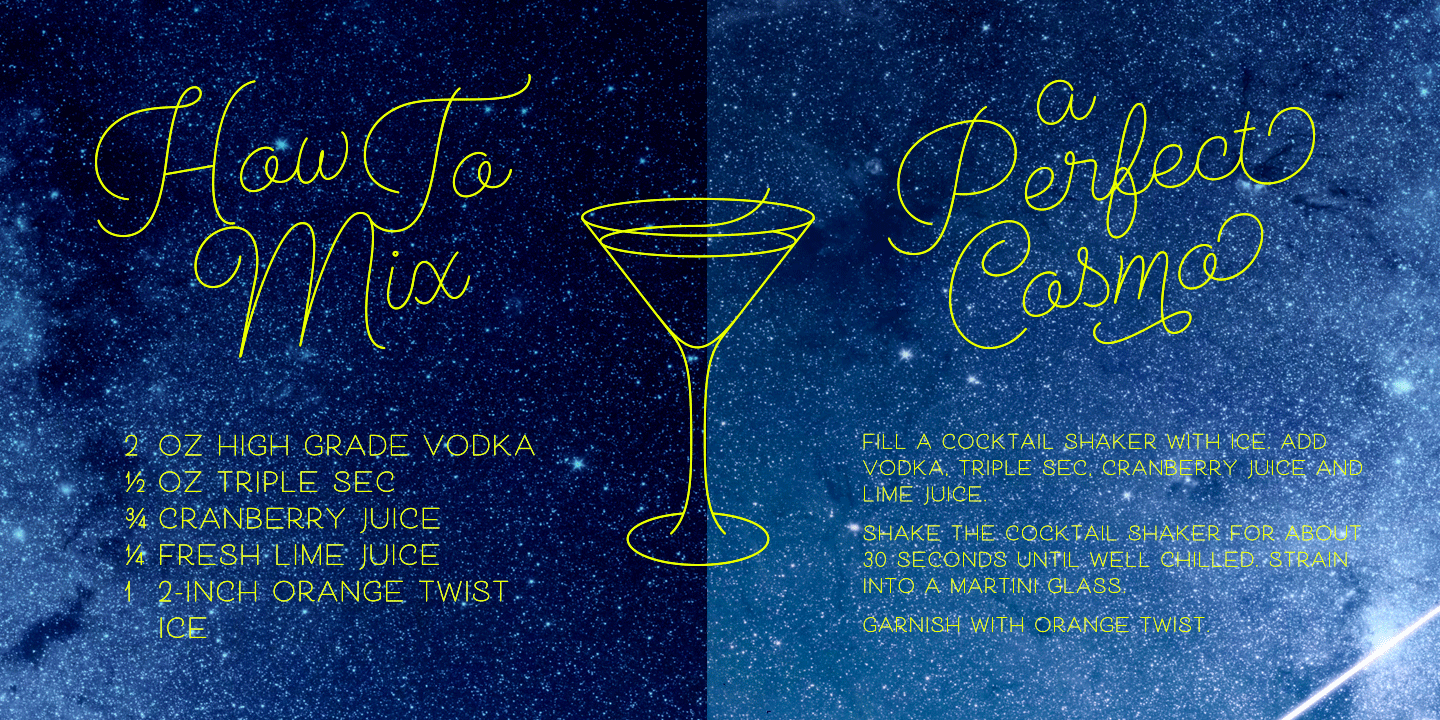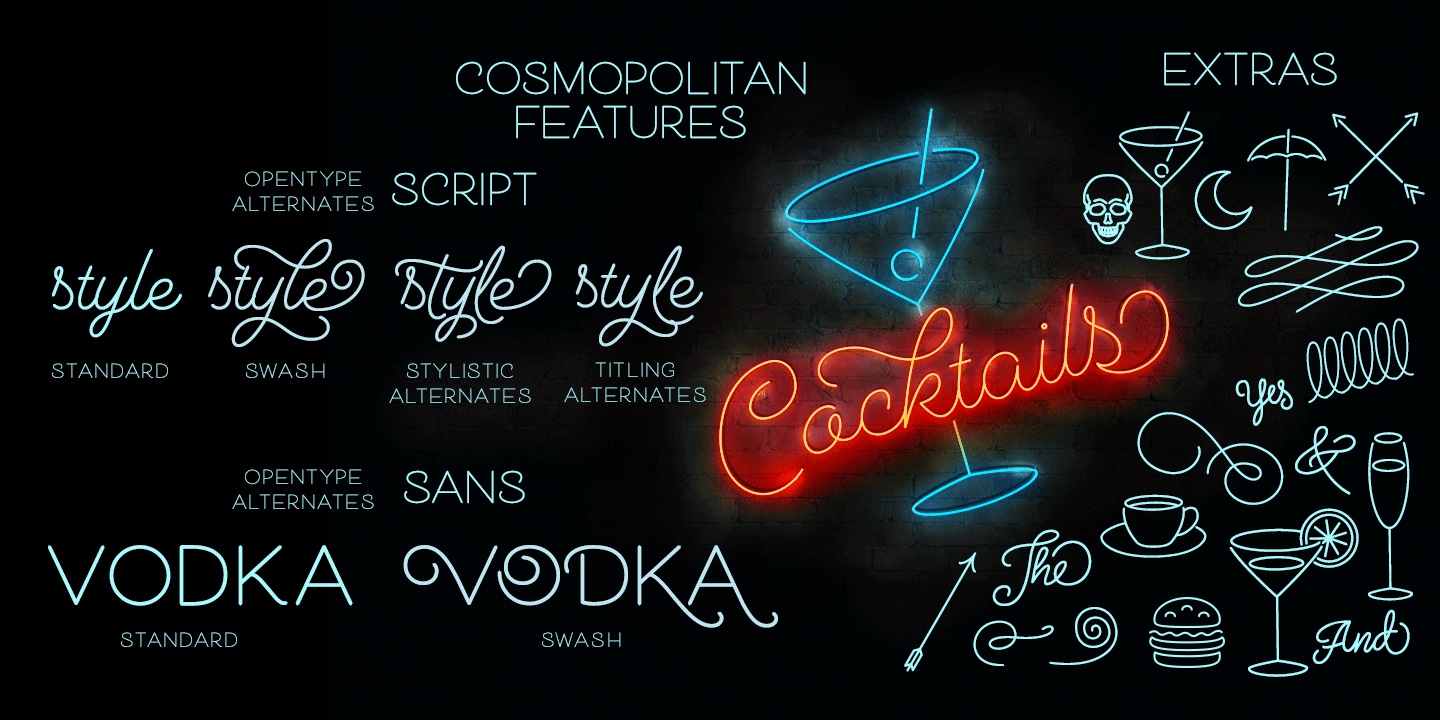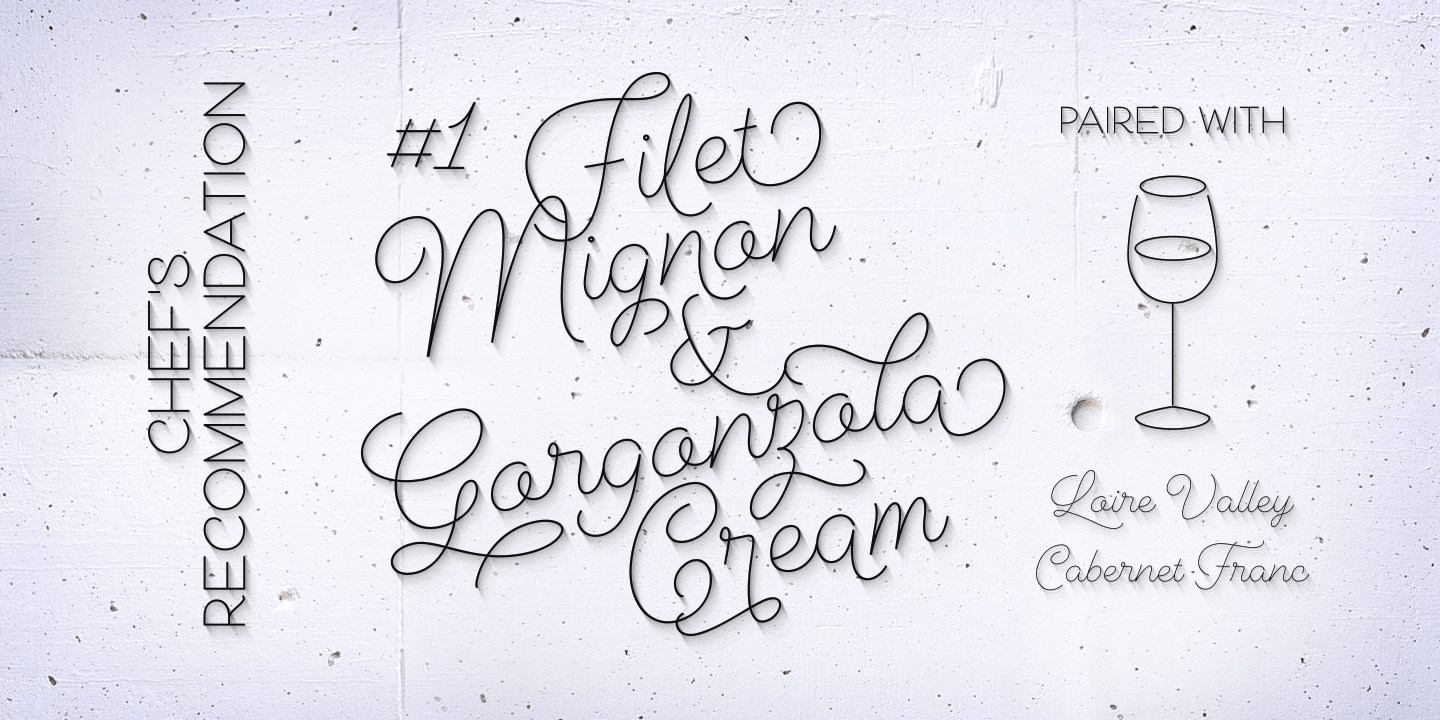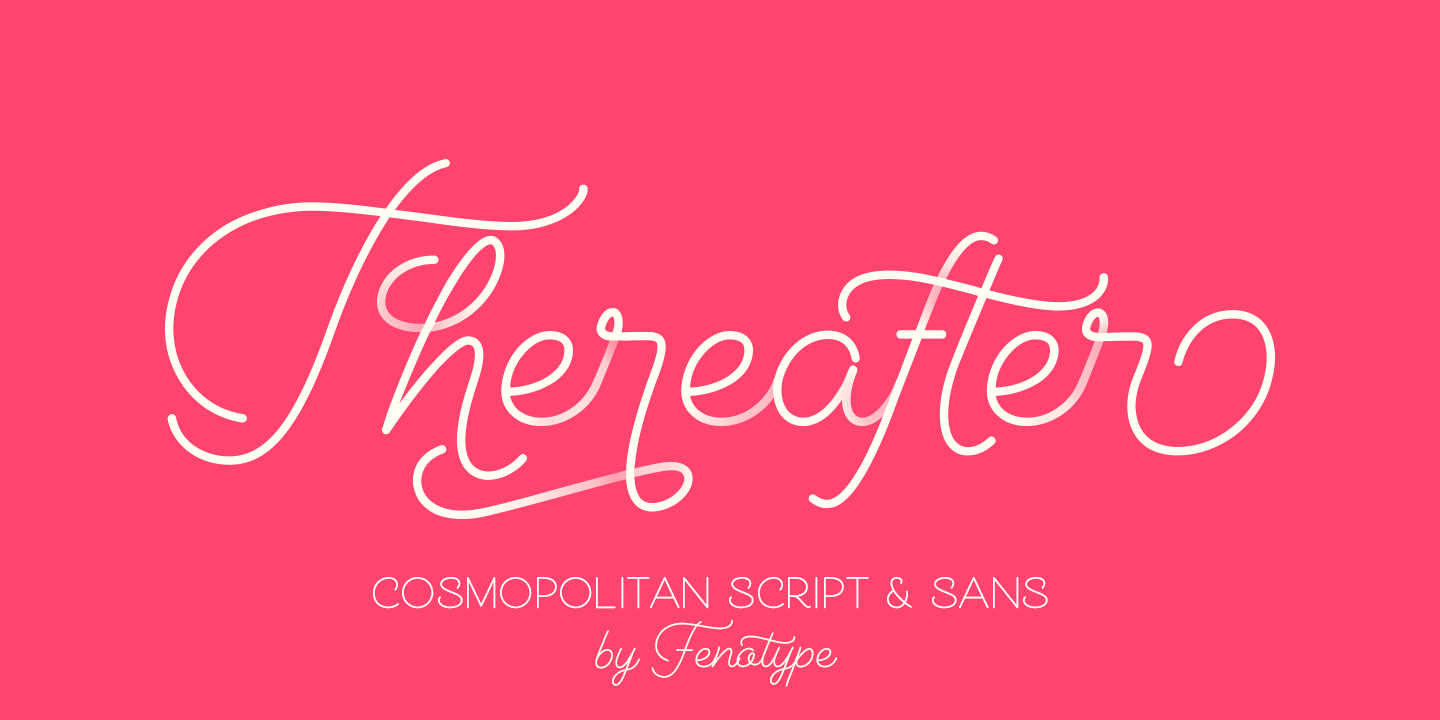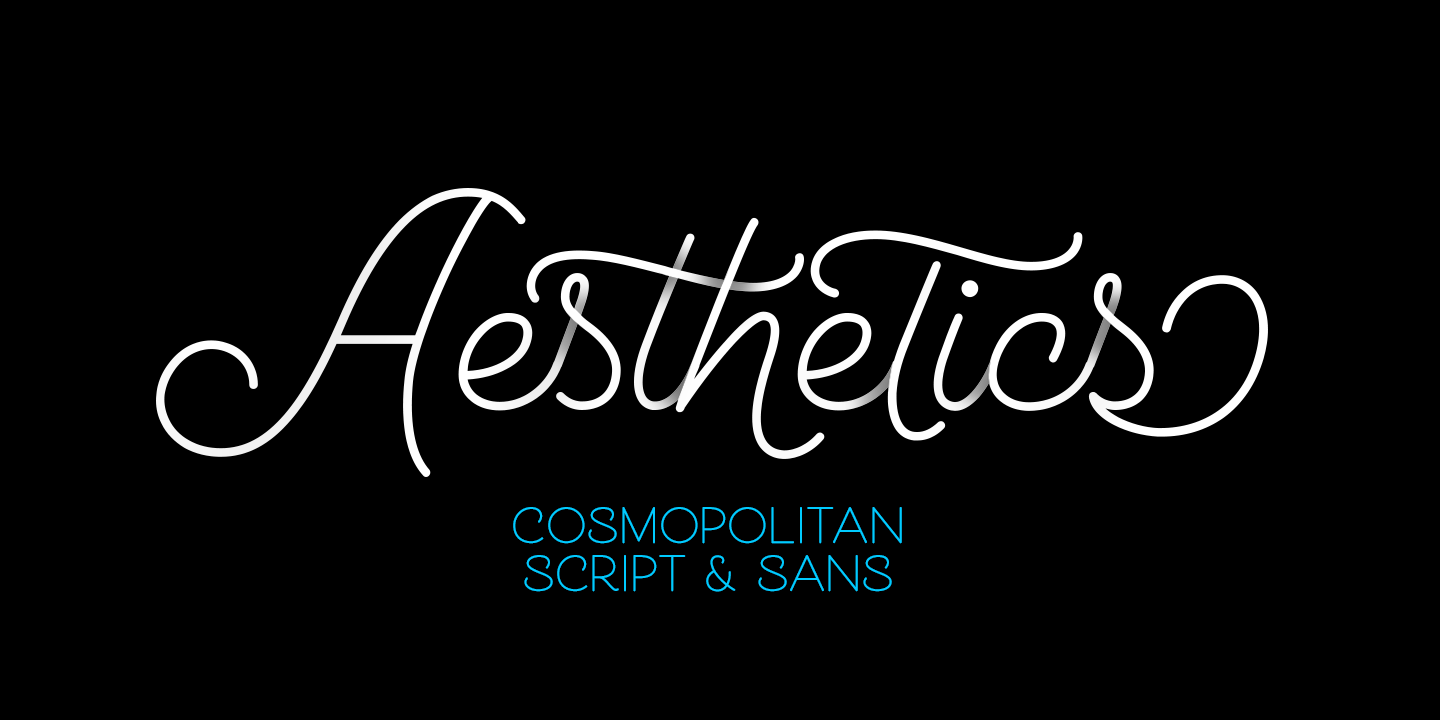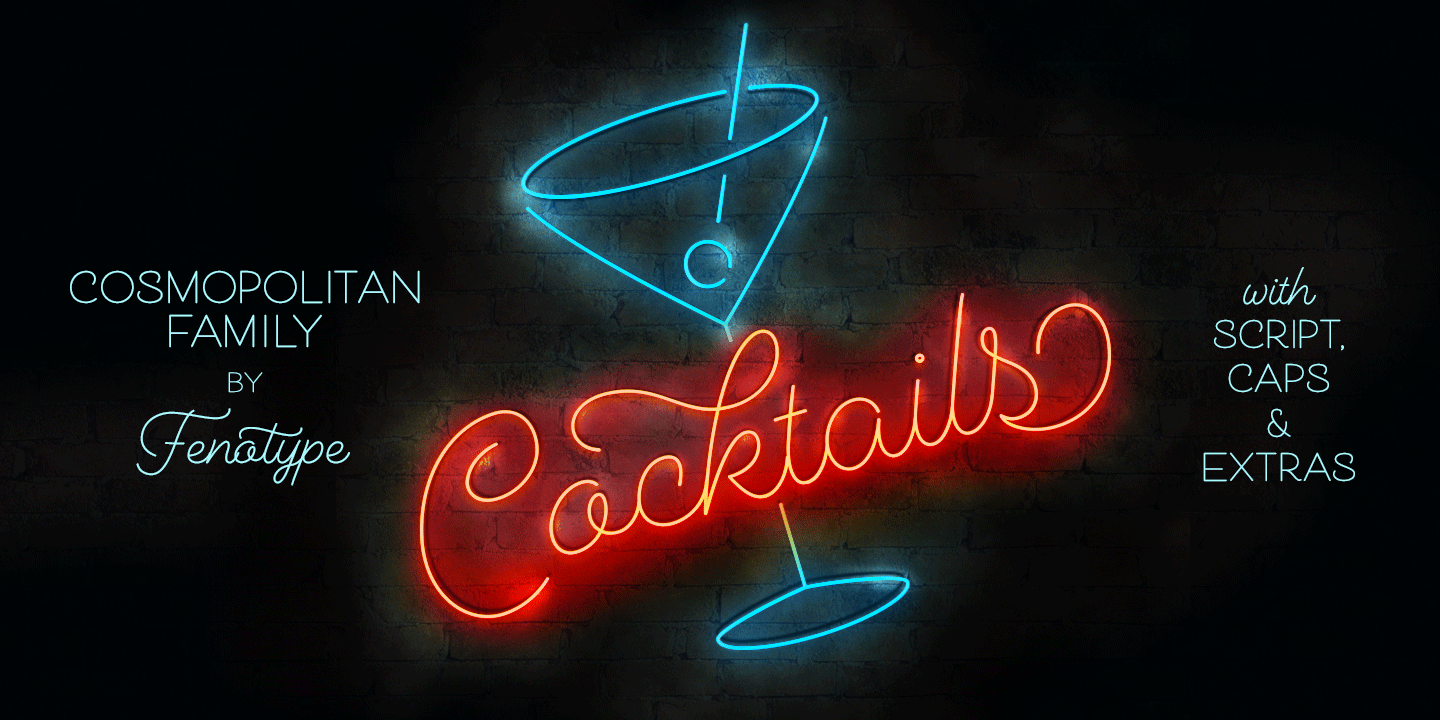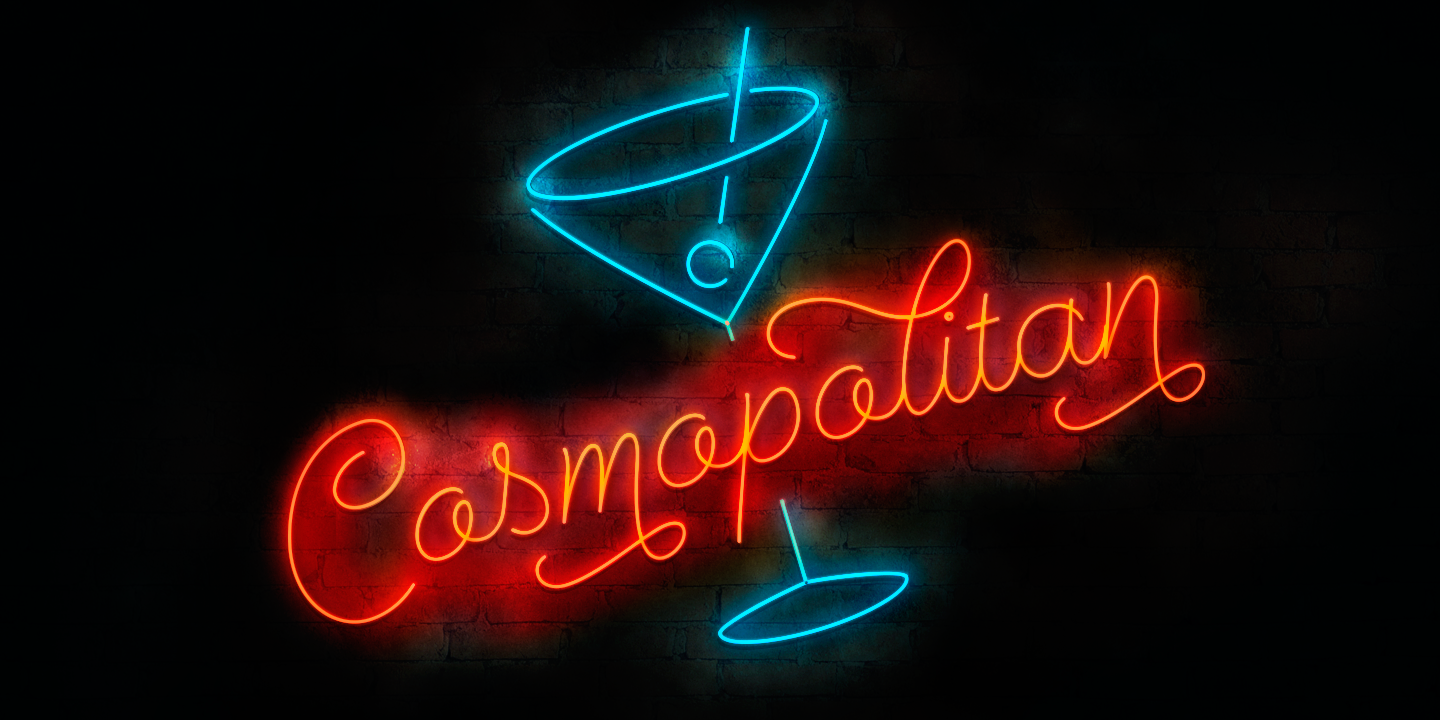
Cosmopolitan Family (15 fonts)
Cosmopolitan Script is packed with OpenType alternates: turn on Swash, Stylistic or Titling Alternates in any OpenType savvy program or find even more alternates from the Glyph Palette. Cosmopolitan Sans has different Swash Alternates for both upper and lowercase characters. Cosmopolitan Family gives an elegant look for any project from print to digital.